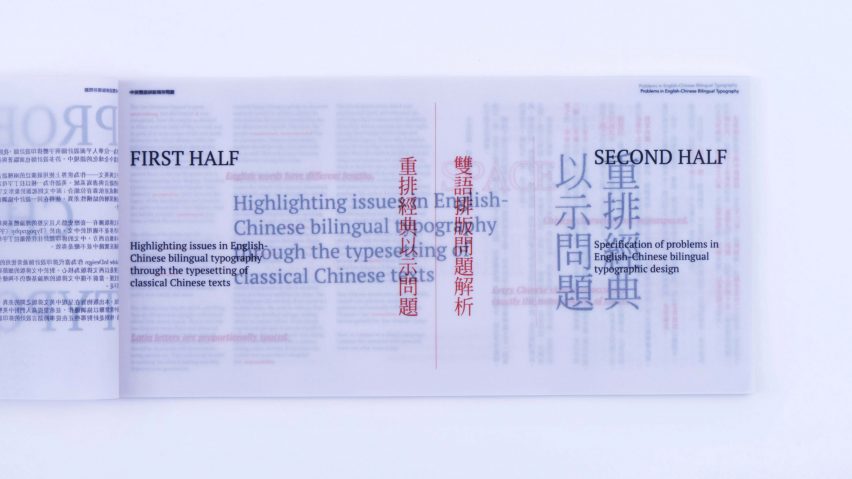
Dezeen School Shows:Â a book with a typeface designed to celebrate the Welsh language is among graphic communication projects from the University of Southampton.
Also featured is a project exploring the dual use of English and Chinese letterforms in graphic design and a risograph-printed book investigating violence against women.
Zero One by Jacob Johnson
"My final major project, Zero One, shifts this lens toward the environmental toll of technology – specifically asking what the Apple brand leaves behind in its push for constant innovation.
"Striking a balance between digital aesthetics and tactile nuance, the work draws from code, early dot matrix printing and space-age typography to form a series of outcomes that question the ethos of perpetual digital upgrades.
"At its centre is a publication powered by a javascript algorithm that generates a randomised data visualisation of the iPhone product line's emissions.
"The result is a living, evolving language formed by circles – abstracting environmental impact over time.
"This same system informs a custom typeface derived from the publication's body typography – merging soft circular forms with the sharper edge of digital structure.
"The letterforms feel simultaneously mechanical and human. The outcomes aim to establish a clinical, almost instructional tone, delivered through a spiral-bound book and paired with an ironically functional website that reflects on the emissions created by the web itself."
One in Three by Sophie Struthers
"My final major project focuses on violence against women and girls, and how the growing popularity of the manosphere and misogynistic male influencers is changing men's (especially young boy's) attitudes and behaviour towards women.
"From the early research into the topic, I found a lot of designs focused on similar topics that produced books or posters only using bright pinks and black.
"This influenced my colour scheme and the printing of the publication. To achieve the bright pink colour, I have printed my outcome on the risograph printer.
"Selina Kehuan Wu's publication, 'Solitude of Self', heavily influenced the visuals within my publication."
Student: Sophie Struthers
Course: BA Graphic Communication
Typographic Stereotypes by Jas Jones
"My final major project presents the idea that typefaces can be viewed as gendered, which reinforces negative gender stereotypes that impact society.
"Over time people have associated feminine or masculine products with certain type characteristics. My book highlights these characteristics and provides examples and descriptions to show their gender connotations.
"In addition to this, my digital website presents an interactive scaling system showcasing how stereotypes dynamically change typefaces. The aim of this project was to bring awareness to designers about gender stereotypes to help guide design into a more gender-neutral future.
"The main outcomes of this project were a physical book and an interactive digital website. The book analyses a large selection of typefaces alongside large blown-up characters. This encourages the audience to analyse the typeface themselves and spot the characteristics within each one.
"This publication highlights these fundamental differences and explores why bilingual typography often falls short.
"It raises awareness of the challenges designers face in striving for visual coherence across both languages."